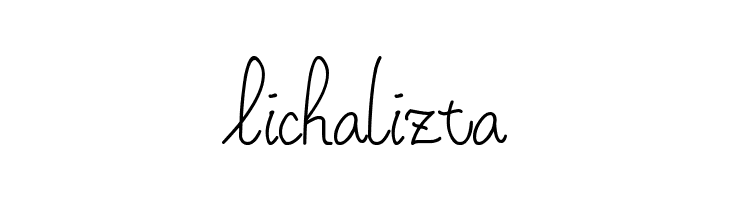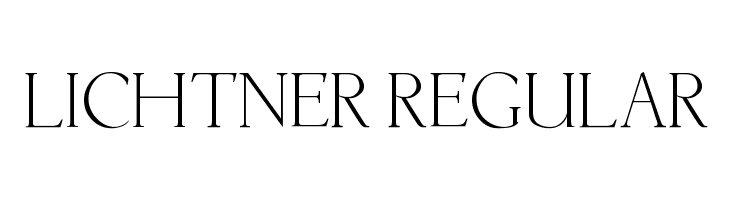
A decorative font styled after vintage license plates, featuring bold, eclectic characters.
A bold, geometric font with a modern and structured appearance.
A playful, whimsical handwritten font with fluid, flowing letterforms.
A refined, high-contrast font with elegant, slightly condensed characters.
A playful, outlined script font with bold, rounded edges and whimsical flair.
A bold, playful outline font with a dynamic, script-like style.
A bold, outlined, geometric font with a modern style.